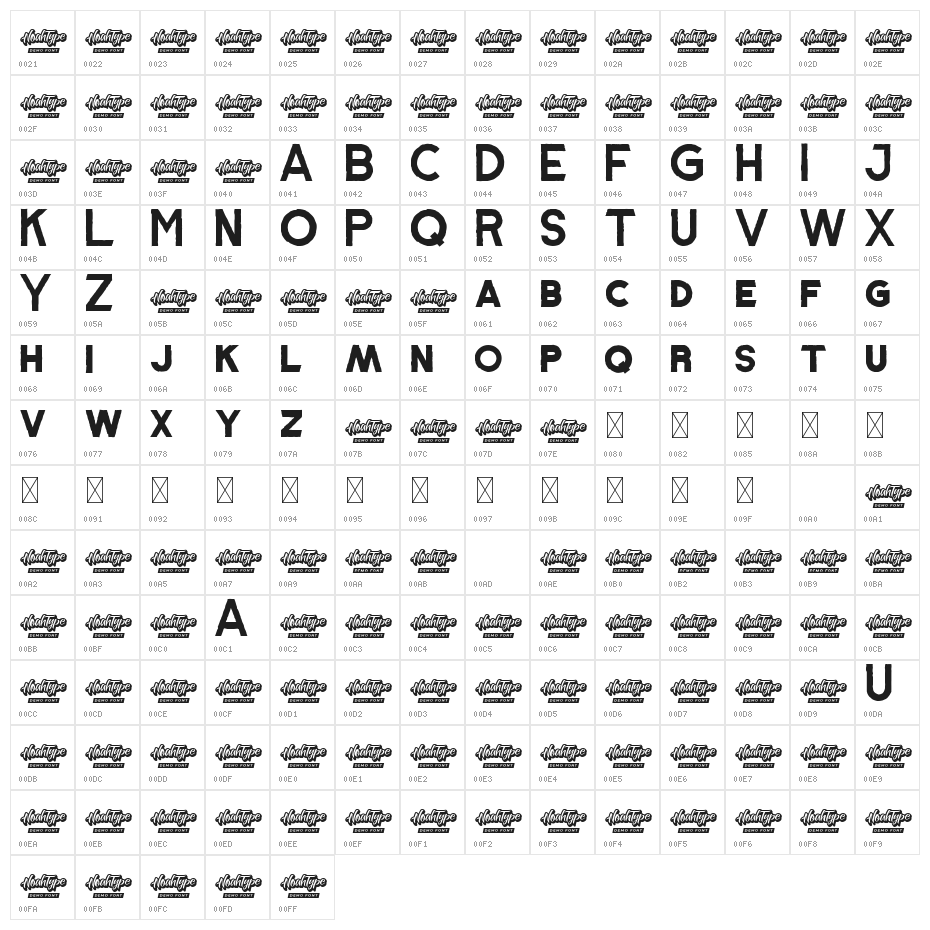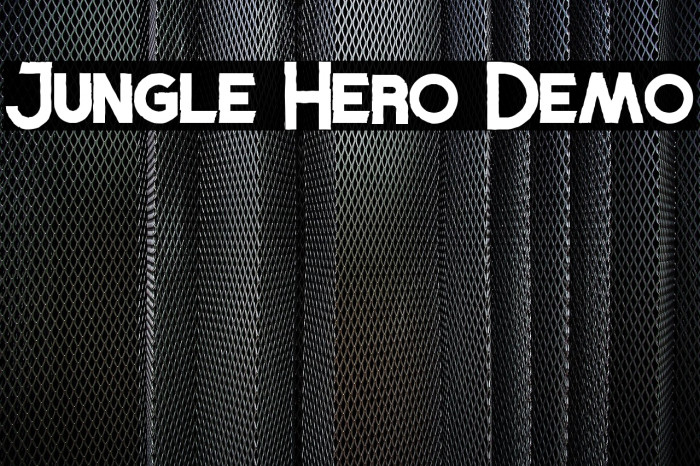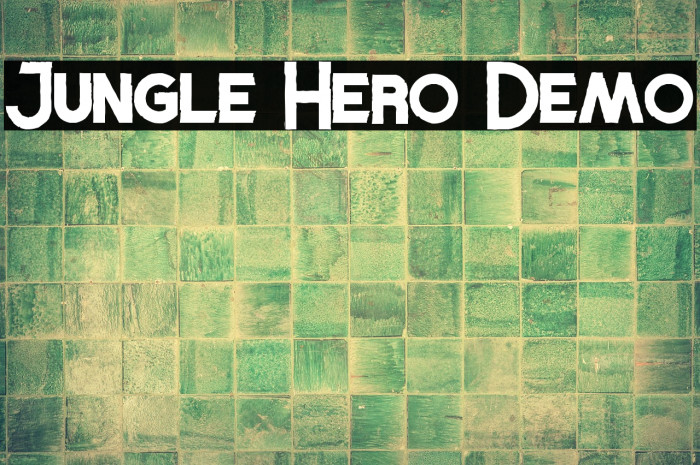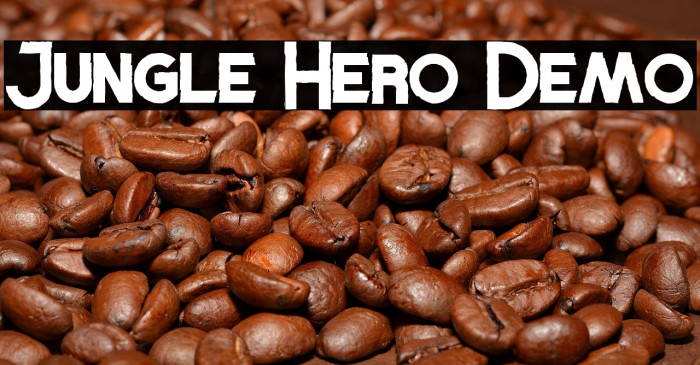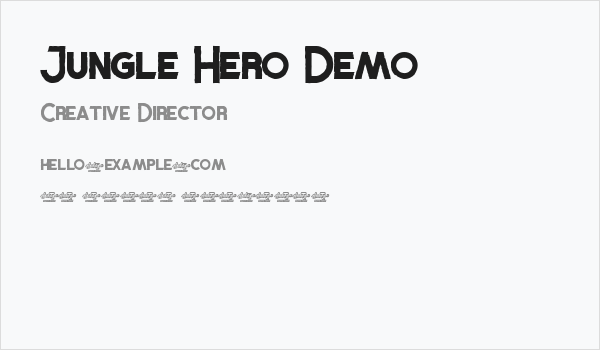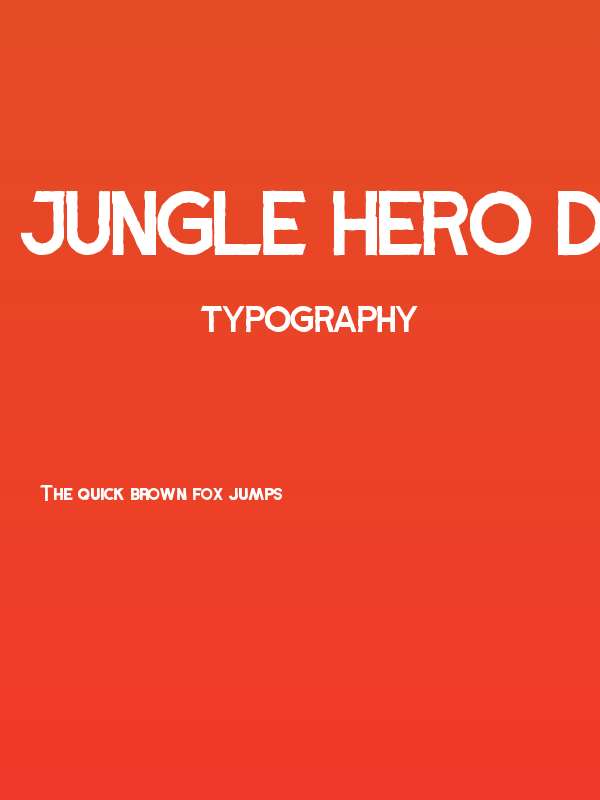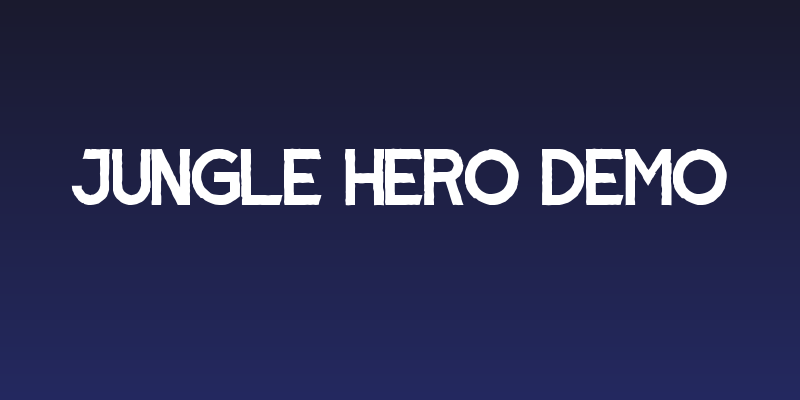
Jungle Hero Demo Font
Jungle Hero Demo Description
This font features a bold and rugged style, with a hand-drawn appearance that gives it a unique and adventurous feel. The letters are slightly irregular, adding to the organic and dynamic look. It is characterized by thick strokes and a somewhat distressed texture, making it stand out as a display font. The uppercase letters are prominent and commanding, suitable for making a strong visual impact. The overall design is reminiscent of natural elements, evoking a sense of wilderness and exploration.
| Overall Style | Adventurous, Rugged, Organic |
| Proposed Projects | Ideal for outdoor-themed branding, adventure posters, book covers, and event promotions. |